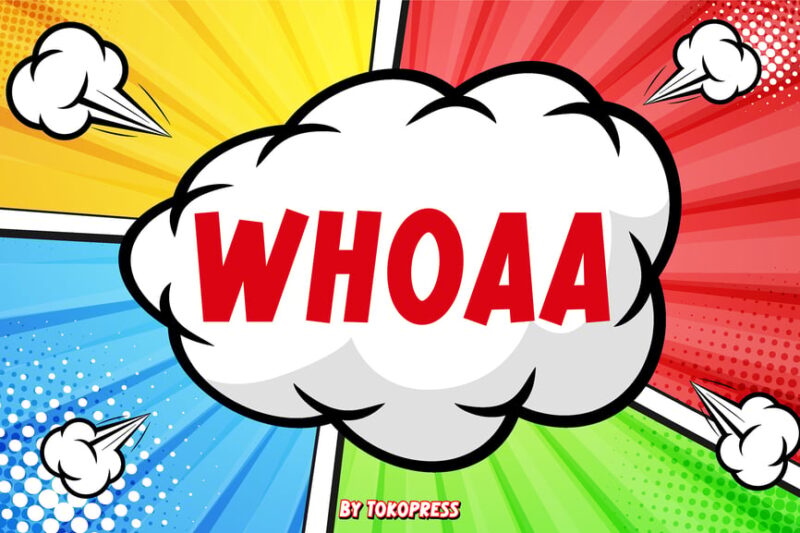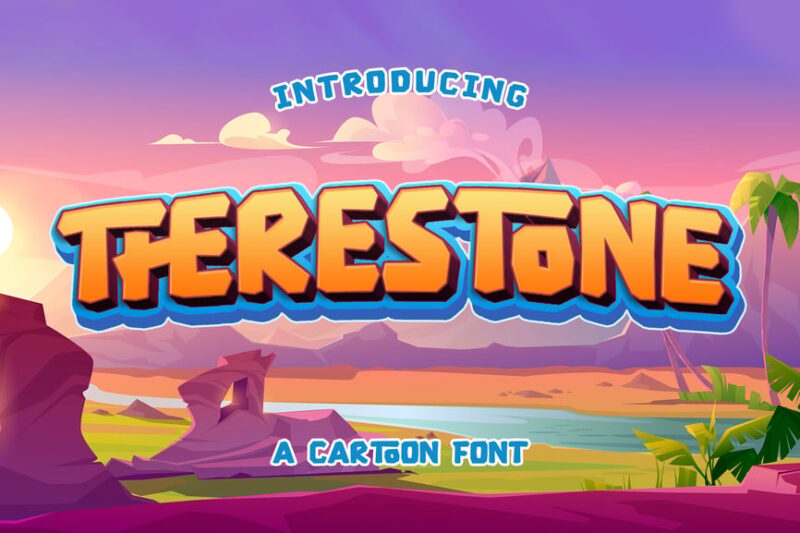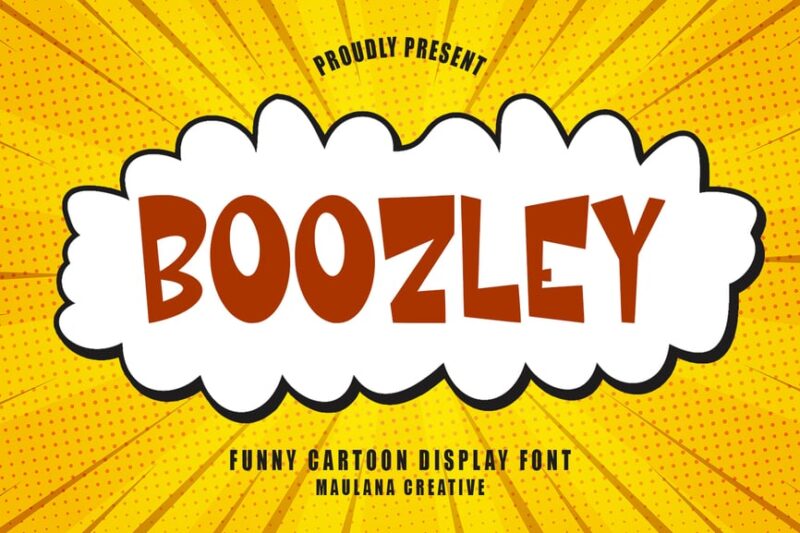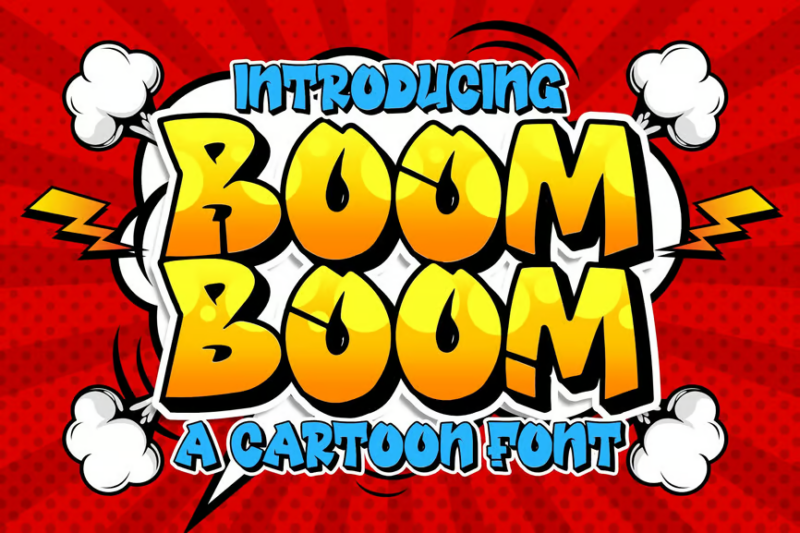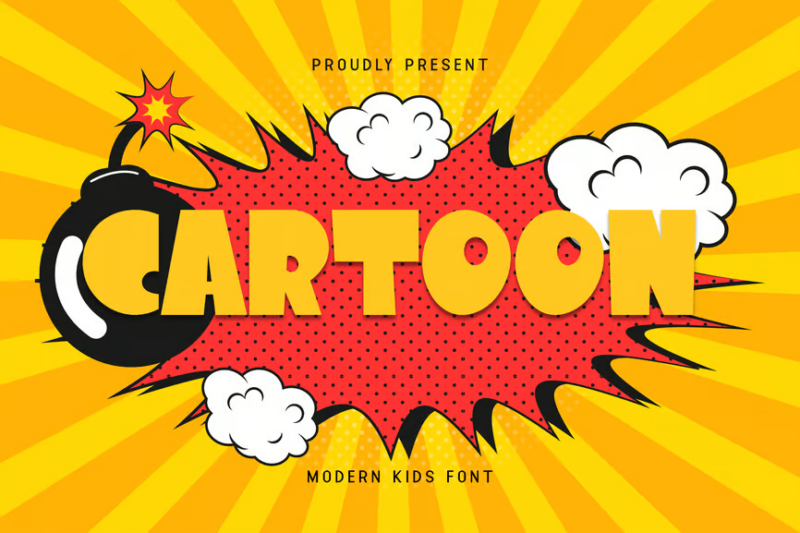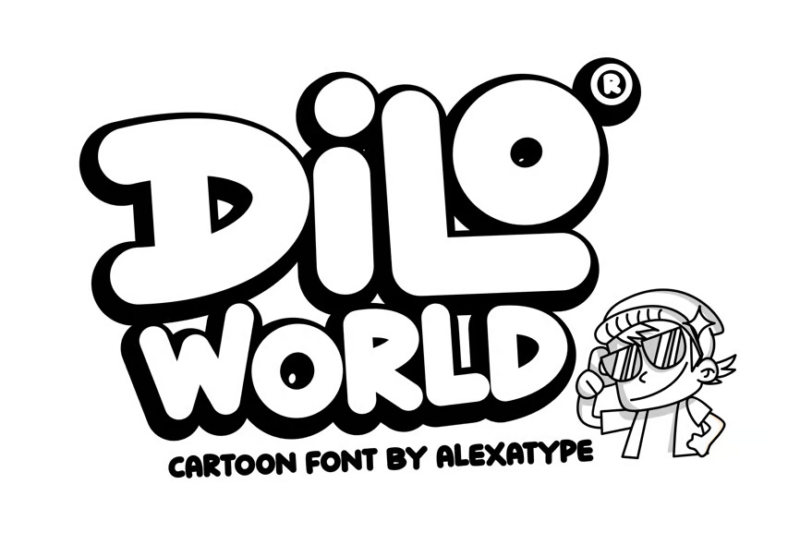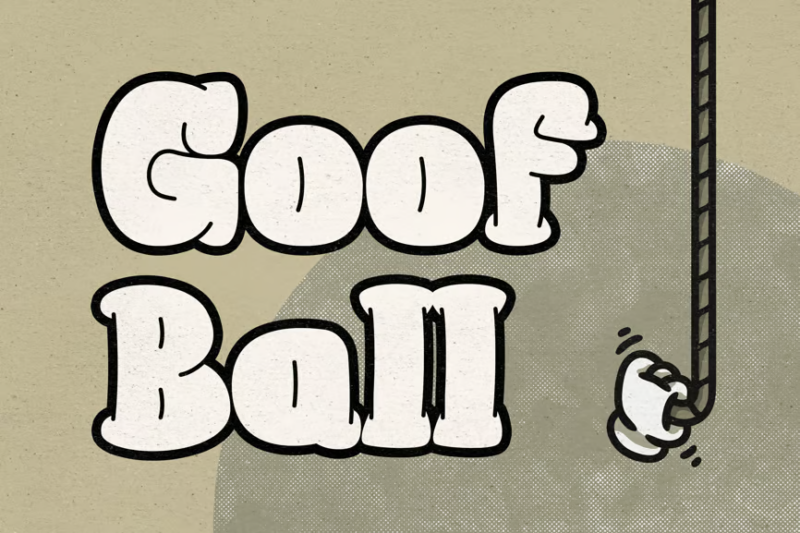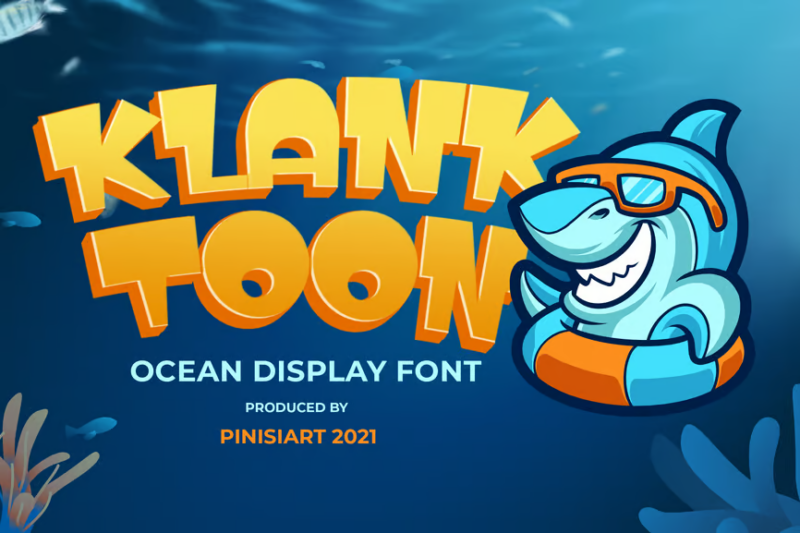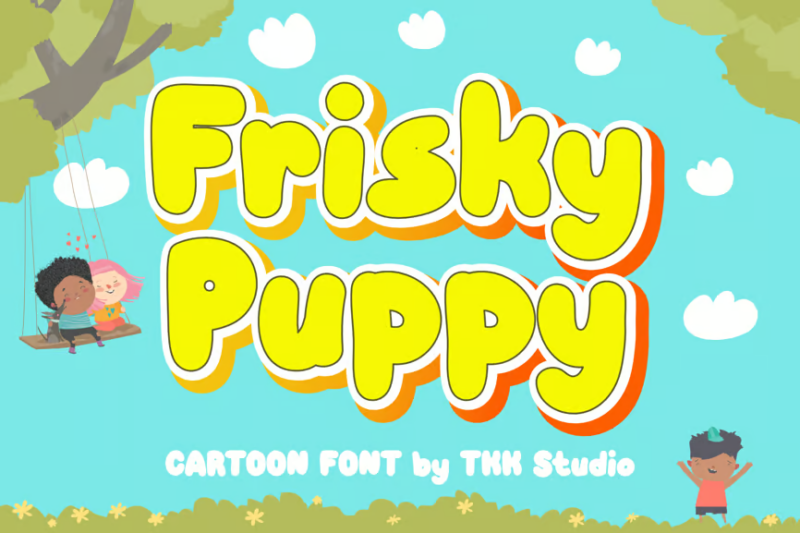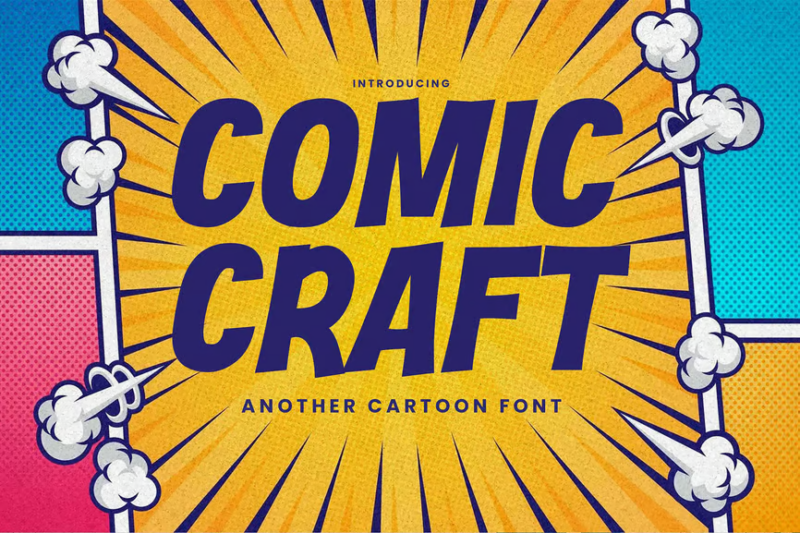
As designers, we’re constantly searching for ways to inject personality and charm into our projects. And when it comes to creating designs that feel fun, approachable, and instantly recognizable, cartoon fonts are the secret weapon in our typographic arsenal.
Cartoon fonts are characterized by their playful appearance, exaggerated shapes, and distinctive personalities. They can transport viewers back to Saturday morning cartoons or give your brand that extra splash of character that helps it stand out in a crowded marketplace.
In this deep dive, I’ll be exploring the very best cartoon fonts that are making waves in 2026. We’ll cover:
- What makes a font truly “cartoony”
- When (and when not) to use cartoon fonts
- The top cartoon fonts dominating the design world right now
- How to pair cartoon fonts with other typefaces
- Expert tips for using cartoon fonts effectively
So whether you’re designing for kids’ products, creating a fun social media campaign, or working on your next animated project, let’s dive into the wonderful world of cartoon typography!
The Most Expressive Cartoon Fonts
Cartoon Font – Whoaa
Whoaa is a bold and dynamic cartoon font that exudes superhero energy. Its strong, exaggerated letterforms make it perfect for eye-catching headlines and comic book-inspired designs. This font is ideal for projects that require a powerful and playful visual impact.
Therestone
Therestone is a charming cartoon display font that combines playfulness with a touch of cuteness. Its rounded edges and quirky character shapes make it perfect for children’s books, fun branding projects, or any design that aims to evoke a sense of whimsy and approachability.
Boozley Cartoon Display Font
Boozley is a lively and expressive cartoon display font that captures the essence of comic book lettering. Its irregular shapes and dynamic styling make it ideal for creating engaging titles, logos, or any design that requires a fun, energetic typographic approach.
Boom Boom Cartoon Font
Boom Boom is a vibrant and playful sans-serif font designed with children’s media in mind. Its bouncy, rounded letters exude a sense of fun and excitement, making it perfect for kids’ books, educational materials, or any project targeting a young audience.
Cartoon – Modern Kids Font
This modern kids font strikes a balance between playfulness and readability. Its clean lines and subtle quirks make it versatile for various children’s design projects, from book covers to educational apps. The font’s contemporary feel ensures it appeals to both kids and adults alike.
Dilo World – Cartoon font
Dilo World is a bold and charismatic cartoon font that commands attention. Its thick, rounded letterforms and slight irregularities give it a friendly yet impactful presence. This font is excellent for creating standout headlines, logos, or any design that needs a strong cartoon aesthetic.
Helicha – Retro cartoon font
Helicha combines retro charm with cartoon playfulness, resulting in a unique display font. Its vintage-inspired curves and whimsical details make it perfect for branding projects that aim to evoke nostalgia or create a fun, old-school vibe. This font works well for posters, packaging, and retro-themed designs.
Comic Speeds – Cartoon Display Font
Comic Speeds is a dynamic and energetic cartoon display font that lives up to its name. Its letterforms suggest movement and speed, making it ideal for action-oriented designs or projects that need to convey a sense of excitement. This font is perfect for comic book covers, event posters, or sports-related graphics.
Goof Ball – Cartoon Font
Goof Ball is a quirky and playful serif font that brings a touch of humor to any design. Its irregular shapes and slightly off-kilter characters create a fun, comic-inspired look. This font is perfect for projects that aim to be lighthearted, such as children’s books, game designs, or humorous branding.
KLANKTOON – cartoon font
KLANKTOON is a lively and expressive sans-serif font designed with cartoons and kids in mind. Its bouncy character and playful letterforms make it ideal for children’s media, animated projects, or any design that needs to capture a youthful, energetic spirit.
Frisky Puppy – Cartoon Font
Frisky Puppy is a cheerful bubble font that exudes playfulness. Its rounded, slightly inflated letters give it a soft and friendly appearance, perfect for designs targeting children or projects that need a touch of whimsy. This font works well for toy packaging, kids’ apps, or fun branding projects.
Comic Craft – Another Cartoon Font
Comic Craft offers a unique take on cartoon typography with its textured, hand-crafted appearance. This sans-serif font combines the playfulness of cartoons with a subtle organic feel, making it stand out in designs. It’s ideal for projects that require a blend of fun and artisanal aesthetics.
Just remember to maintain sufficient contrast for readability.
Consider Context
The most successful use of cartoon fonts aligns with the overall theme and purpose of your design. A font that works perfectly for a children’s birthday party invitation might feel out of place on a teen clothing brand’s website.
Always ask yourself: does this font reinforce my message or distract from it?